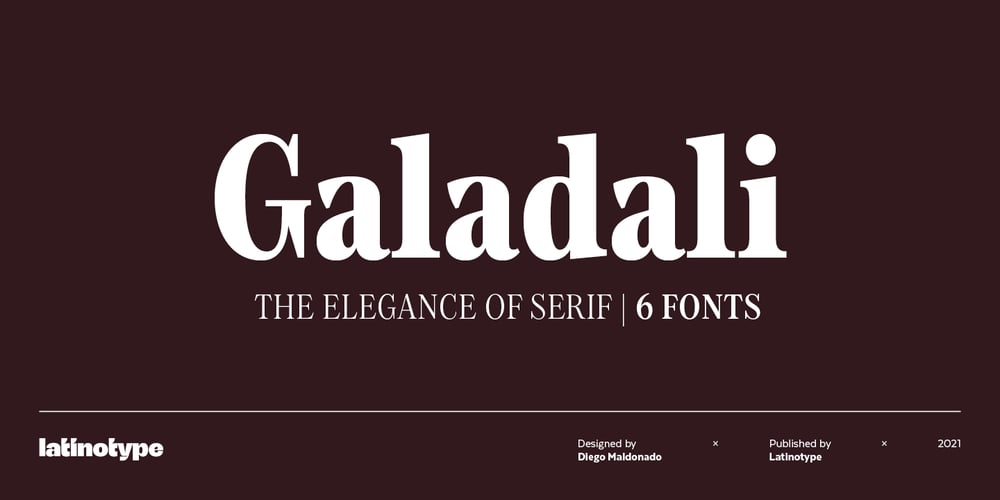
Galadali Font Family was designed by Diego Maldonado and published by Latinotype. Galadali contains 6 styles and family package options. If you are looking for an elegant typeface, with strong impact and delicate details, then Galadali is the perfect choice for you. With a complete range of resources, like small caps, old-style and lining figures, fractions, superior and inferior letters, figures, and weights from light to heavy, Galadali offers a wide variety of combinations for you to create with. Galadali’s multiple alternates and swashes can add extra spice to your designs.A tall condensed typeface specially designed for beautiful titles.